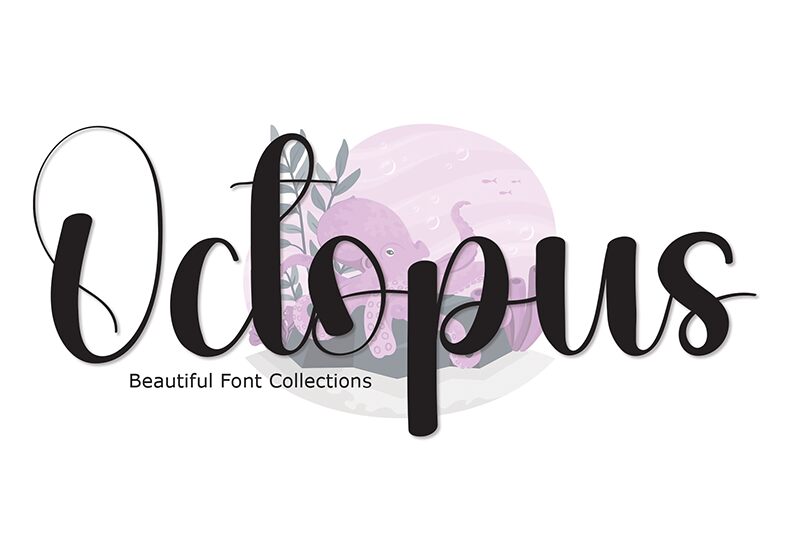
Octopus
Octopus font is a free calligraphy font designed by Andi Moz, combining modern script elements with elegant and flowing lines. It’s expressive and sophisticated, making it ideal for projects that require a touch of refinement. The ornamental shapes and subtle decorations provide an exquisite visual impact ensuring your written material stands out.
Use Octopus in wedding invitations, event programs, place cards, greeting cards, brand packaging, advertising campaigns, social media graphics, website headers, menus or book covers. Its elegance beautifully amplifies all personal and business items making them more inviting to readers.